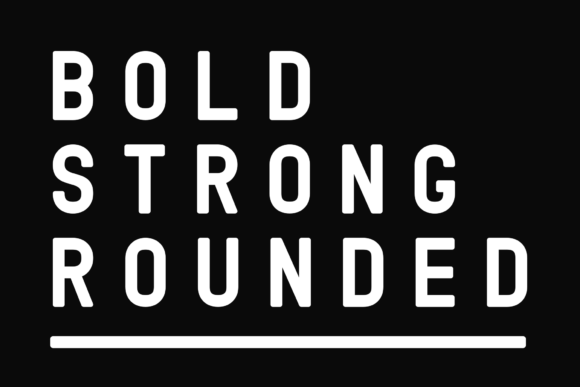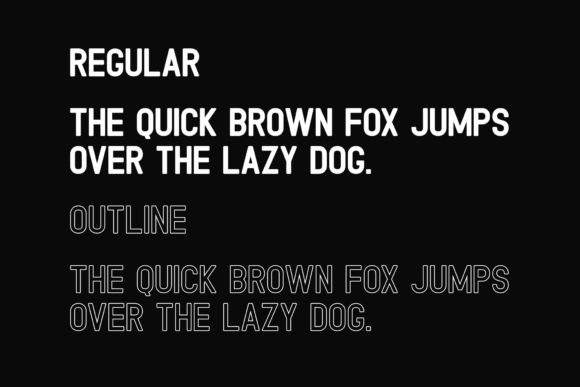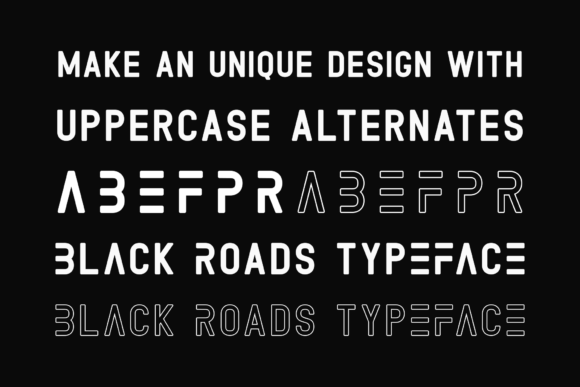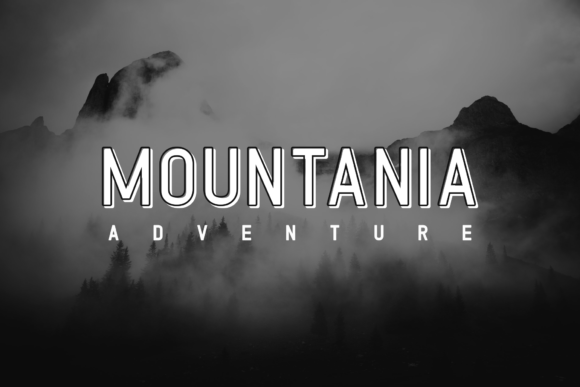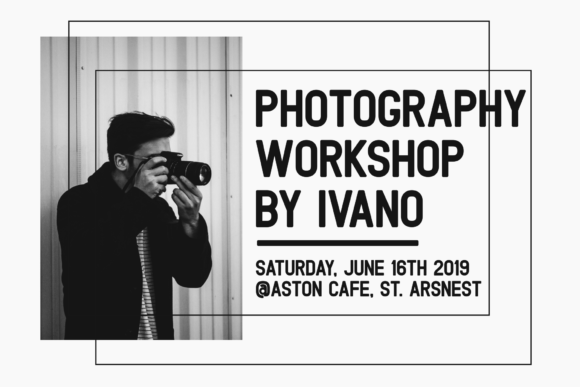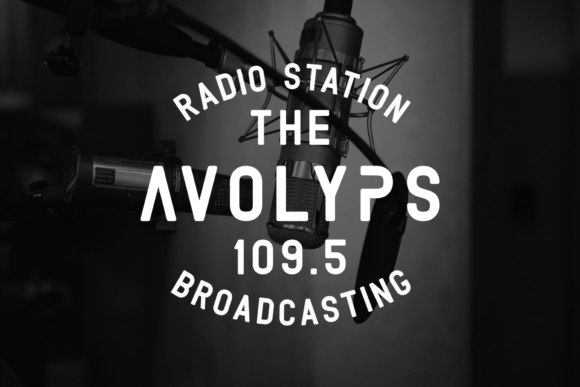
The Ultimate Guide to Black Roads Font: A Designer’s New Best Friend
I’ll never forget the time I was working on a logo design project for a trendy new coffee shop. My client was adamant that the font had to be “clean, strong, and modern,” but I was struggling to find the perfect fit. That’s when I stumbled upon the Black Roads Font, and it instantly became my go-to. In this article, I’ll share my experience with this amazing sans serif font, its features, and how to make the most of it in your designs.
An Honest Review of Black Roads Font
The Black Roads Font is a clean and strong sans serif font that comes in both regular and outline versions. It’s perfect for a wide range of design projects, from logos and branding to invitations, stationery, advertisements, labels, and more!
What I Love About Black Roads Font
- ✨ Clean and modern design: The Black Roads Font has a sleek, contemporary look that’s perfect for designs that need to feel fresh and current.
- ✅ Versatile: With both regular and outline versions, you can use this font in a variety of contexts, from bold statements to delicate details.
- 💡 Ease of use: The font is easy to read and works well in both digital and print formats.
While the Black Roads Font is an excellent choice for many projects, there are a few things to keep in mind:
- 🤔 Limited character set: As with any font, there may be limitations to the character set, so be sure to check that it includes all the characters you need.
- ⚠️ Not suitable for body text: Due to its clean and modern design, the Black Roads Font may not be the best choice for lengthy body text. It’s better suited for headings, titles, and short paragraphs.
The Story Behind Black Roads Font
The Black Roads Font was designed with the goal of creating a clean, strong, and versatile sans serif font. While the exact designer or inspiration behind the font may be unclear, it’s evident that the font was crafted with attention to detail and a passion for modern design.
| Font Name | Black Roads Font |
| Author | Sibelumpagi Studio |
| What type of projects is the Black Roads Font best suited for? | The Black Roads Font is perfect for logos, branding, invitations, stationery, advertisements, labels, and more! |
| Is the Black Roads Font suitable for body text? | No, the Black Roads Font is better suited for headings, titles, and short paragraphs. It’s not recommended for lengthy body text. |
| Does the Black Roads Font come in different weights or styles? | The Black Roads Font comes in regular and outline versions, providing some flexibility for your designs. |